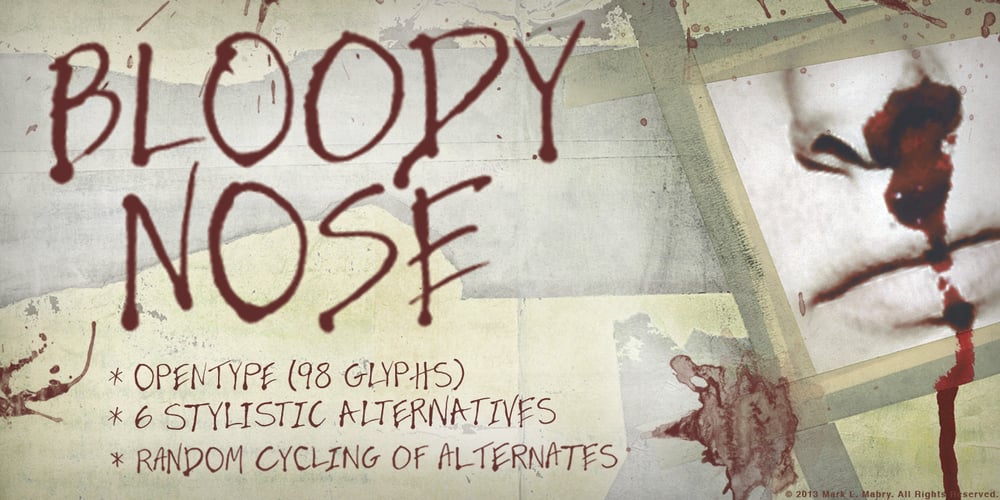
Bloody Nose
Bloody Nose font
Bloody Nose Font Family was designed by Mark Mabry and published by Mabry Creative. Bloody Nose contains 1 styles and family package options. Bloody Nose, from Mabry Creative, is an original decorative font with embedded OpenType features. Consisting of hand-scrawled characters, the font is set in all caps and features ninety-eight glyphs with six alternate versions of each. The alternates automatically and randomly cycle through for a more authentic handwritten effect. Bloody Nose was created using an eyedropper to apply red ink to Bristol board. The natural running and pooling of the ink as it absorbed into the board inspired the font’s title.